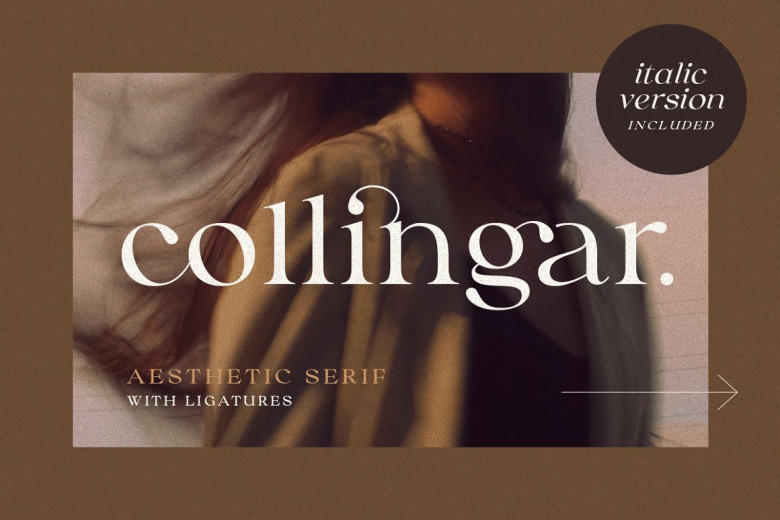
Collingar Font
Collingar is ligature classic serif style font, its perfect for your display or product design. With italic version that you can use as a complimentary! You can use this font as a complement of your script collections or use this font as a stand alone font for several purposes such as a wedding invitations or even your own branding! This fonts support Multi Language and already PUA Encoded!